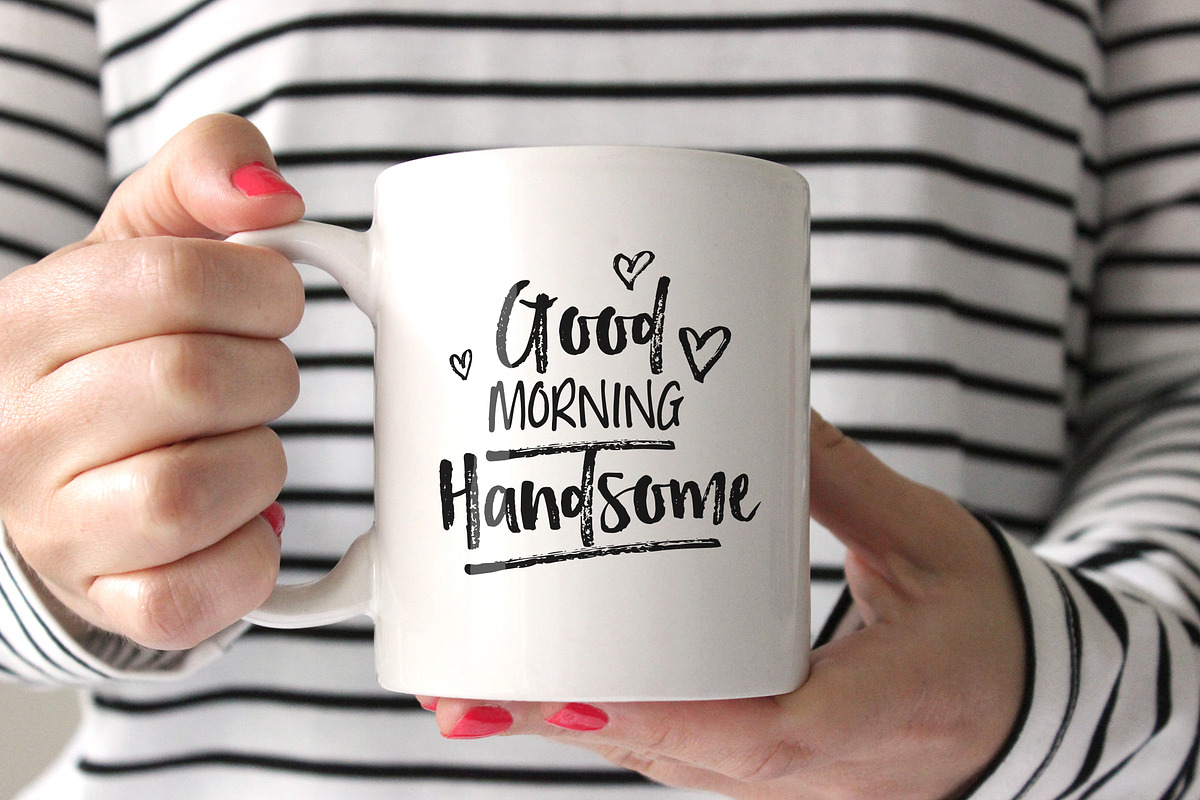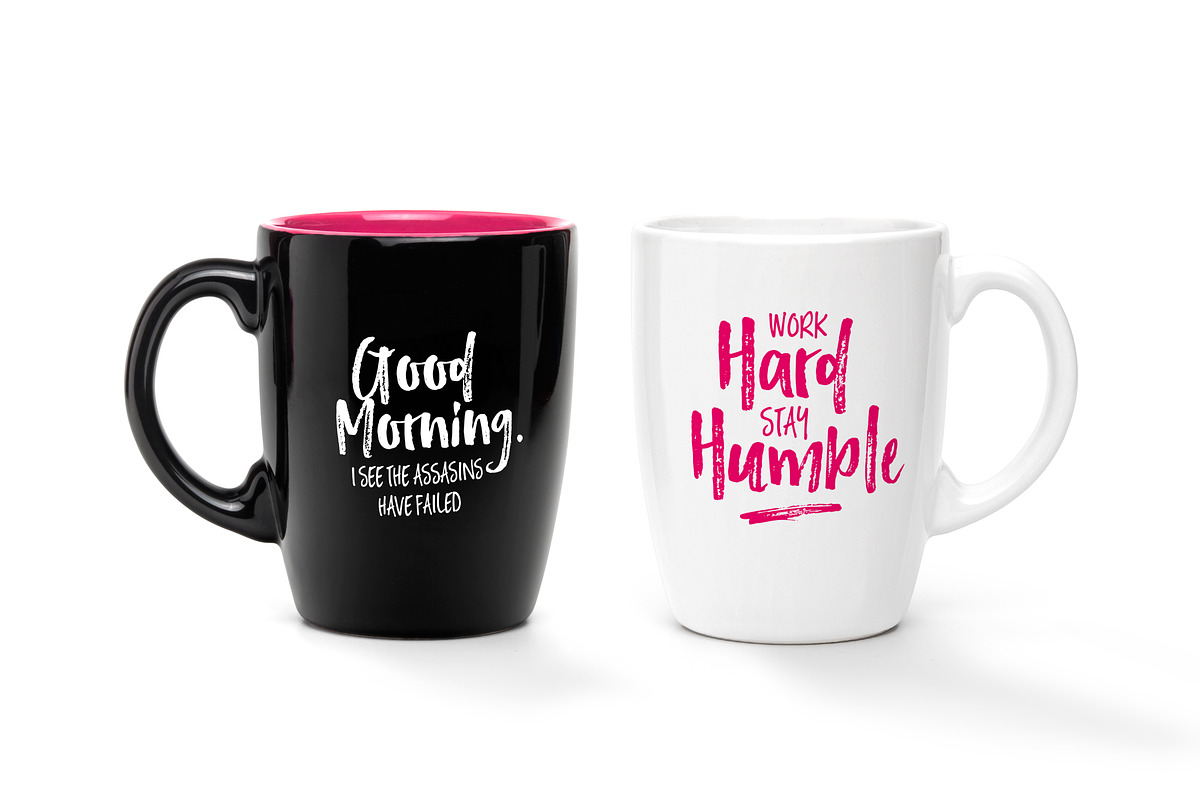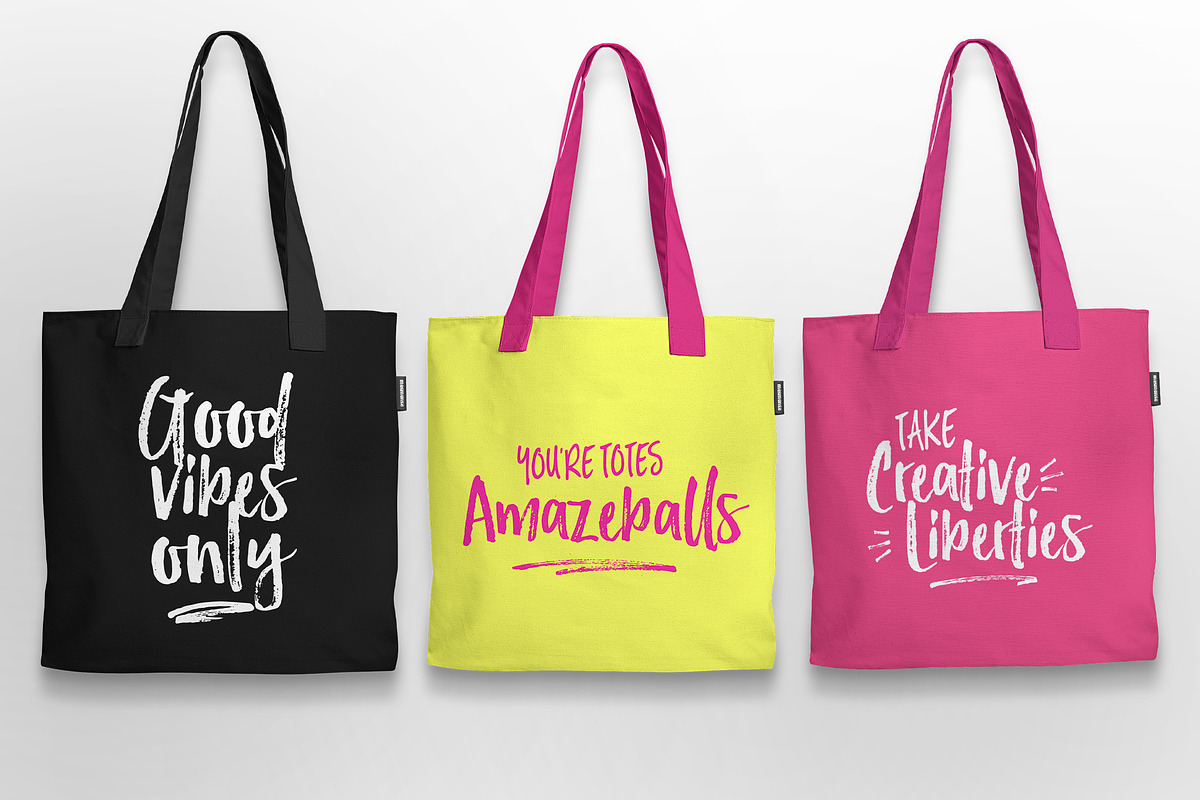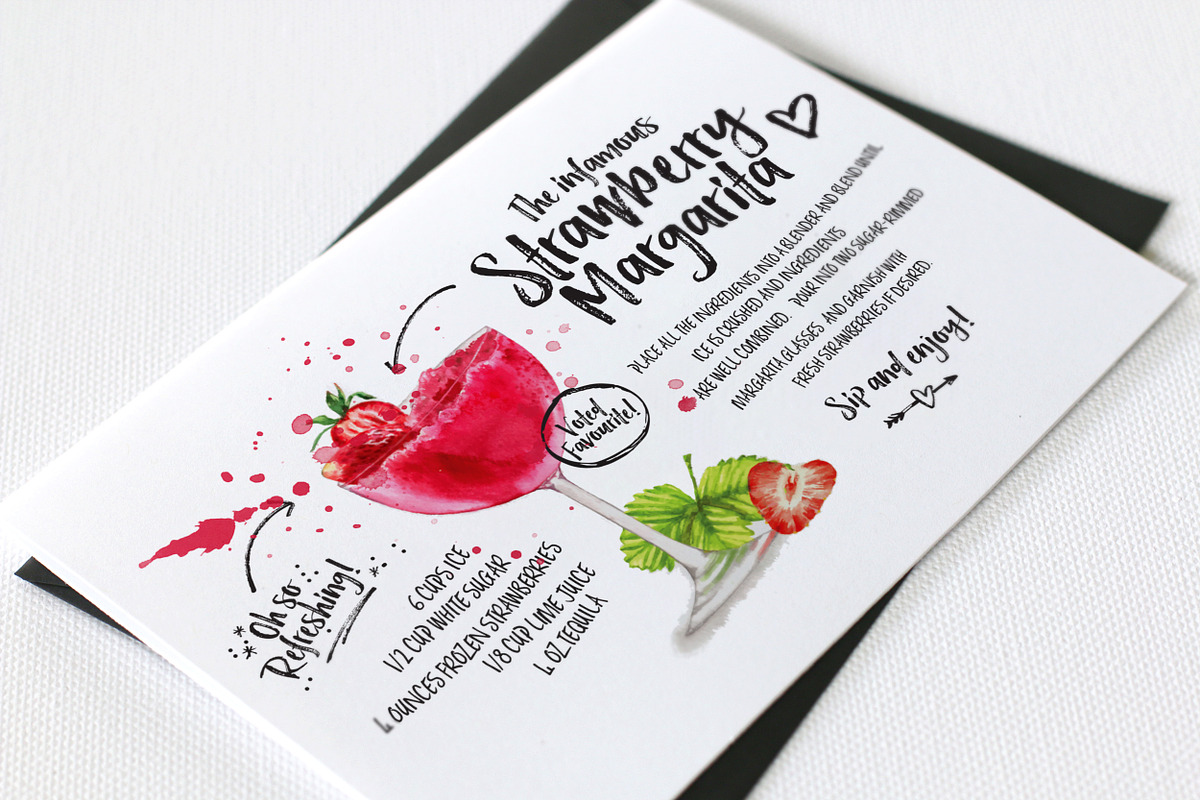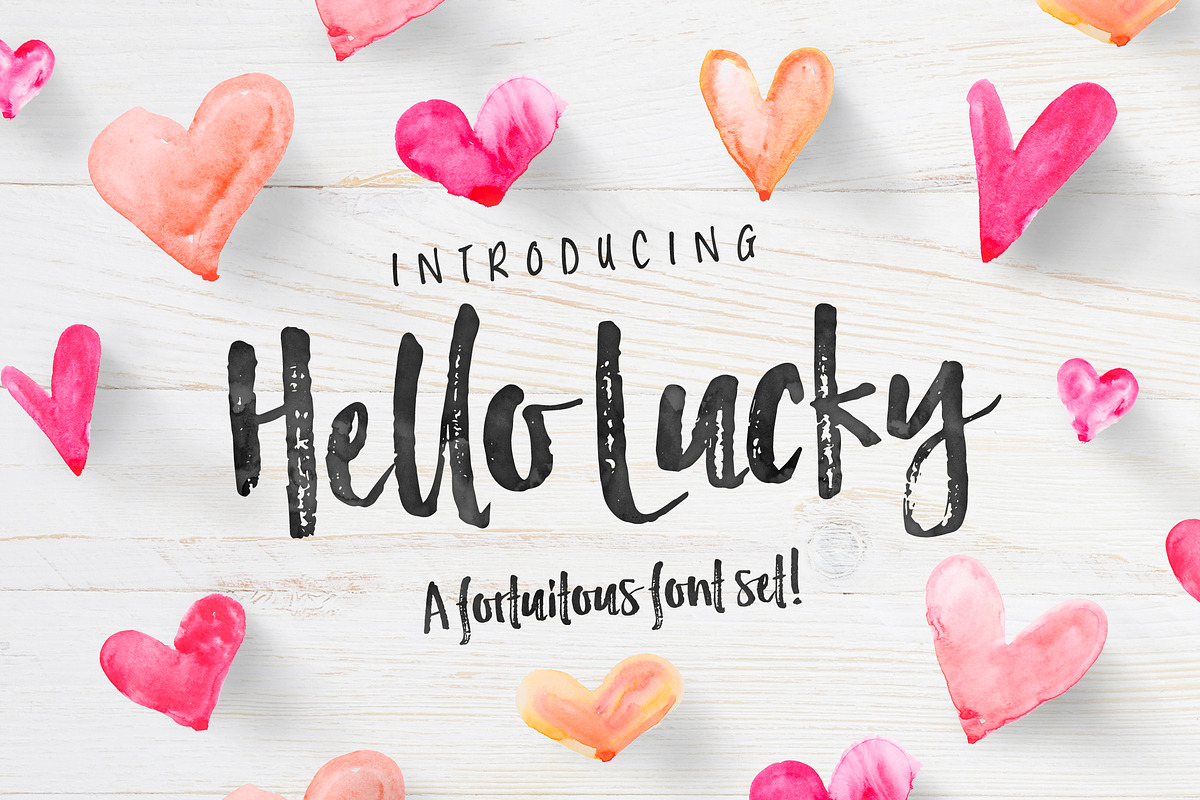
Hello Lucky Font Set
Hello Lucky Font Set by Nicky Laatz is a font selected for branding, posters, packaging, typography.
- Just type out your design , and then make it pop with the bonus font , and extra scribbles, doodles and rushed underlines from the ornaments
- It also has multilingual support with accented characters for international users.
Why Hello Lucky Font Set is worth a look
Hello Lucky Font Set by Nicky Laatz fits naturally into Branding, posters, packaging, typography.